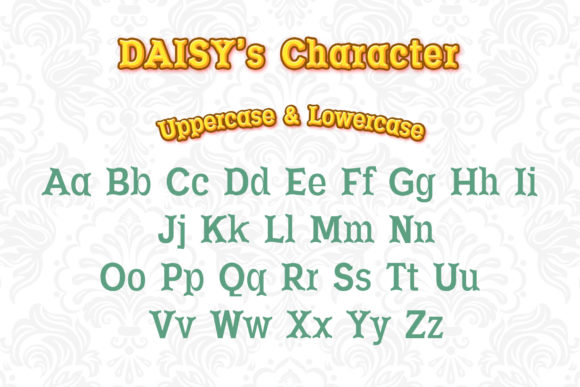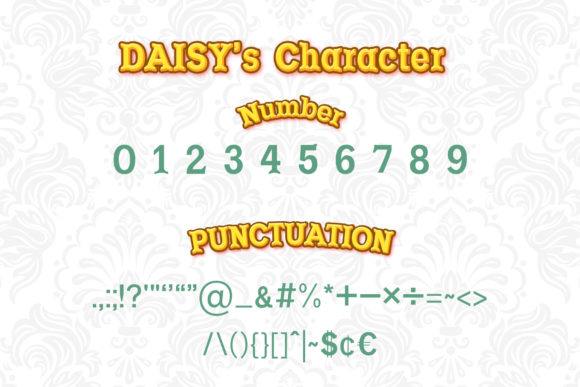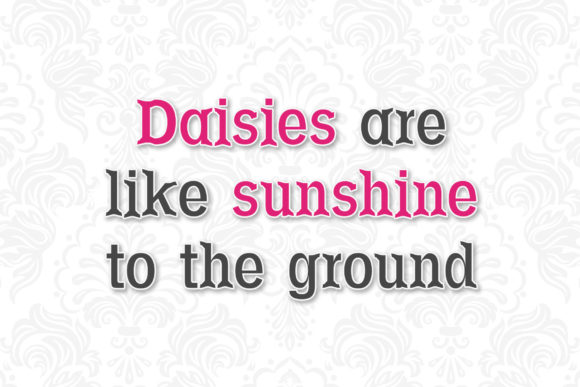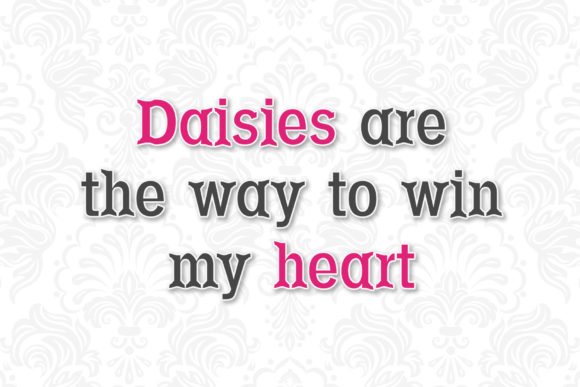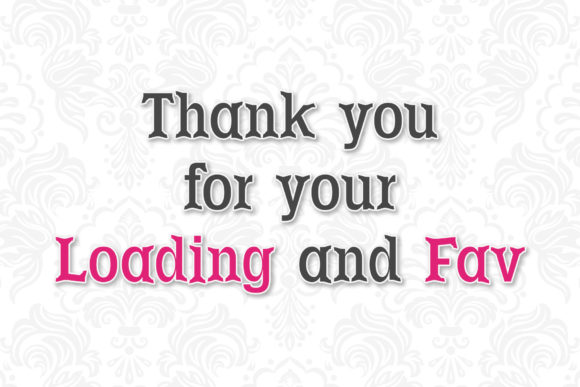
Daisy Font: The Elegant Serif Choice for Every Design Need
In the vast and ever-evolving world of typography, finding the perfect font that suits your design needs can be a daunting task. However, if you’re looking for an elegant serif font that can elevate your projects with its neat and simple style, look no further than the Daisy Font. This versatile typeface has the potential to become your go-to font for a wide variety of designs, no matter the occasion.
What is Daisy Font?
Daisy Font is a beautifully crafted serif font known for its elegant and refined appearance. Its design combines traditional serif elements with a modern twist, making it suitable for a broad range of applications. From luxury branding and high-end product packaging to elegant wedding invitations and professional publications, Daisy Font brings a touch of sophistication and class to any project.
Key Features of Daisy Font
- Elegant Serif Design: The font features well-defined serifs that add to its elegance and readability, making it perfect for both digital and print media.
- Neat and Simple Style: Despite its luxurious feel, Daisy Font maintains a simplicity that ensures clarity and legibility across various sizes and resolutions.
- Versatility: Its neutral and balanced design allows it to fit seamlessly into a wide array of design contexts, from formal to semi-formal settings.
- Easy to Read: The carefully considered letter spacing and size ensure that text set in Daisy Font is easy to read, even at smaller sizes.
Why Choose Daisy Font?
There are several reasons why designers and crafters might choose Daisy Font for their projects:
- Timeless Appeal: The classic serif design ensures that your work will remain stylish and relevant for years to come, avoiding the fleeting nature of trendier fonts.
- Professional Look: Whether you’re working on a corporate brand identity, a magazine, or a product label, Daisy Font can help you achieve a professional and polished look.
- Emotional Connection: The elegance of Daisy Font can evoke a sense of luxury, trust, and sophistication, helping you connect with your audience on a deeper level.
- Wide Usage: It can be used in various design projects including but not limited to logos, brochures, posters, packaging, and digital media.
How to Use Daisy Font Effectively
To make the most out of Daisy Font, consider the following tips:
- Pairing: Combine Daisy Font with sans-serif fonts for a classic contrast that highlights headings and body text effectively.
- Sizing: Use larger sizes for headings to draw attention and maintain readability for body text at smaller sizes.
- Color: Stick to a simple color scheme that complements the elegance of the font, such as monochromatic tones or subtle gradients.
Daisy Font stands out as an elegant and versatile serif font suitable for a multitude of design needs. Its neat and simple style, combined with its professional and timeless appeal, makes it an excellent choice for designers and crafters looking to add a touch of sophistication to their work. Whether you’re creating a luxury brand identity, an elegant wedding invitation, or a professional publication, Daisy Font has the potential to become your favorite go-to typeface.
- Is Daisy Font suitable for digital use?
- Yes, Daisy Font is designed to be legible on both digital and print media, making it suitable for a wide range of applications.
- What type of projects is Daisy Font best for?
- Daisy Font is versatile and can be used in projects requiring an elegant and professional look, such as luxury branding, magazines, product packaging, and wedding invitations.